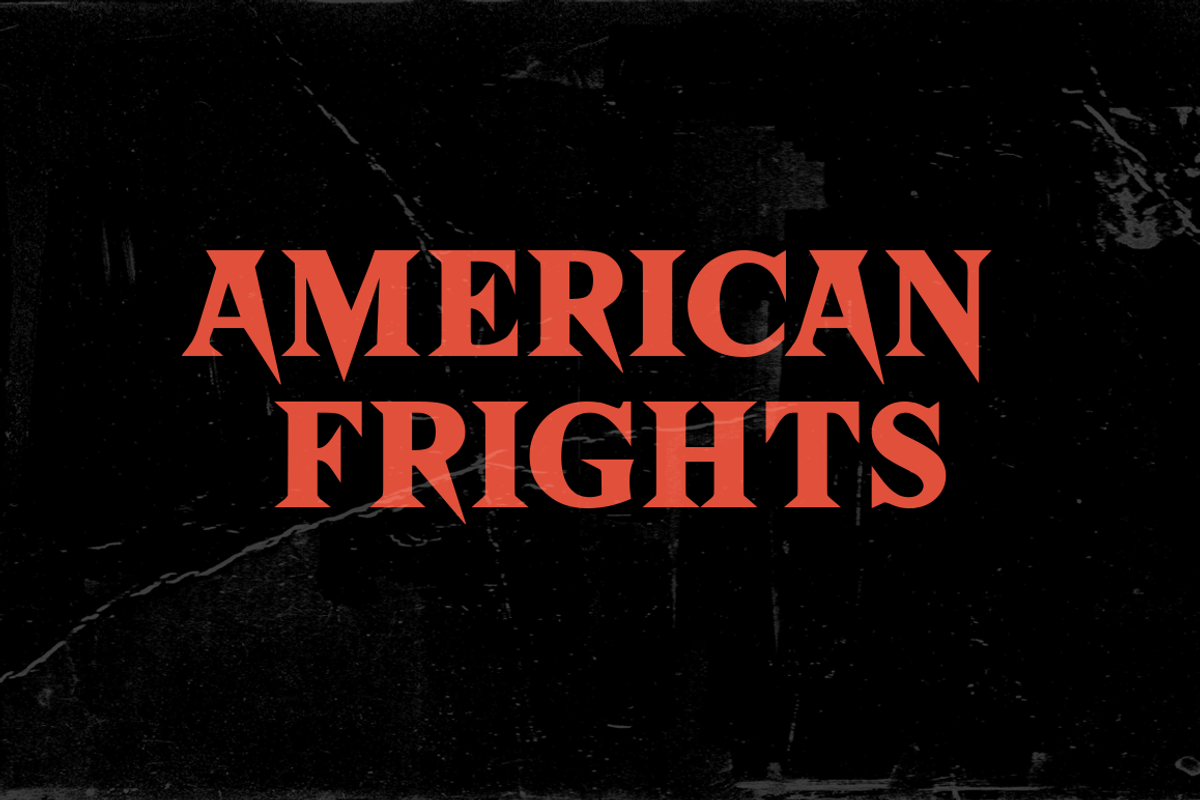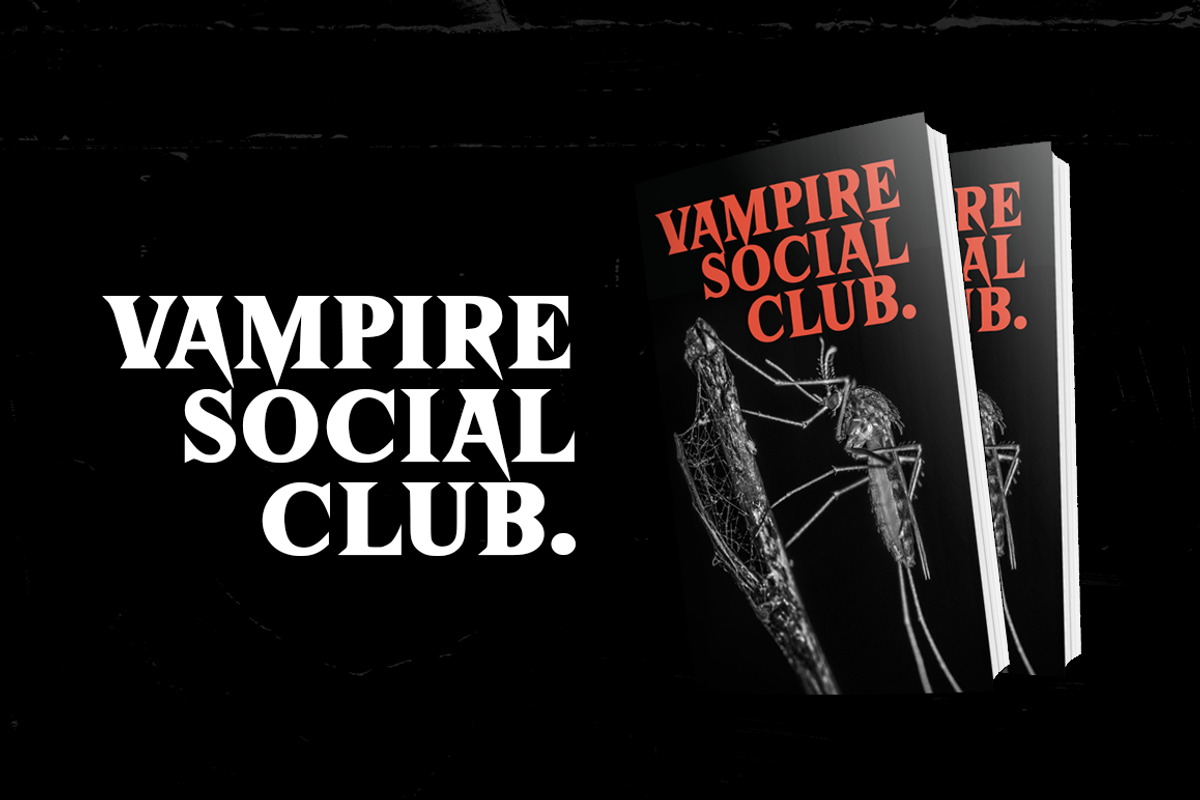
American Frights - Horror Serif Font
Purge out the old standard of Serif-based designs. You will never imagine a little sharpening would bring out the most outstanding look of simple things. We present, American Frights! A project study of horror and emotional typeface.